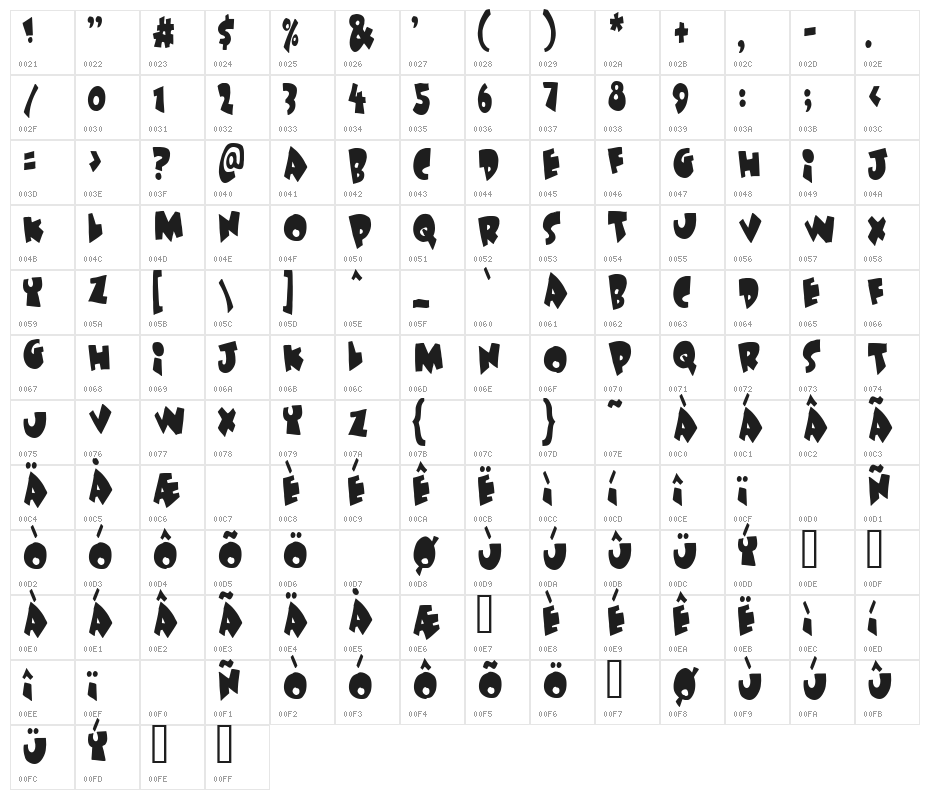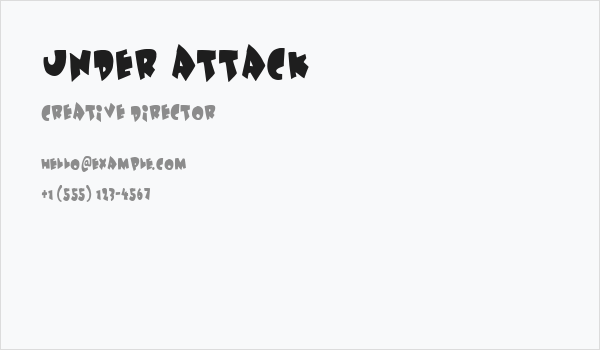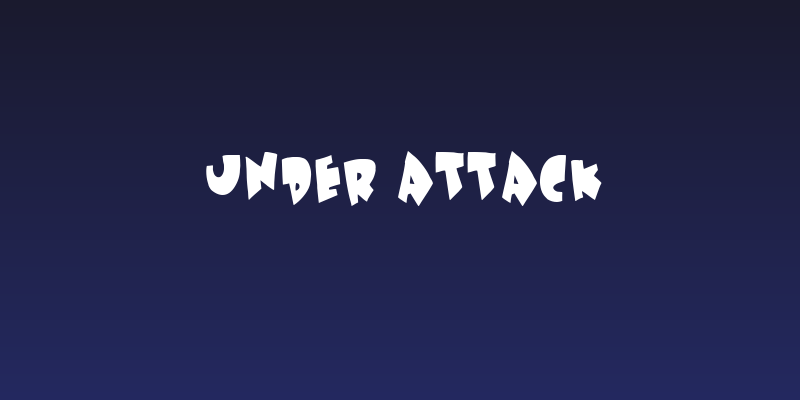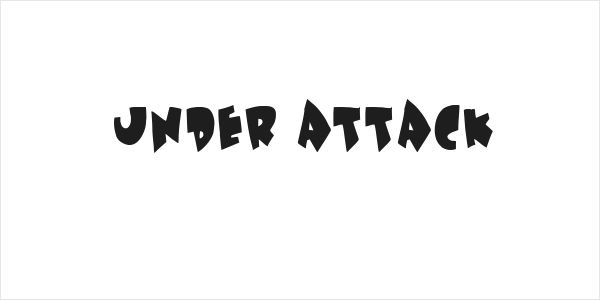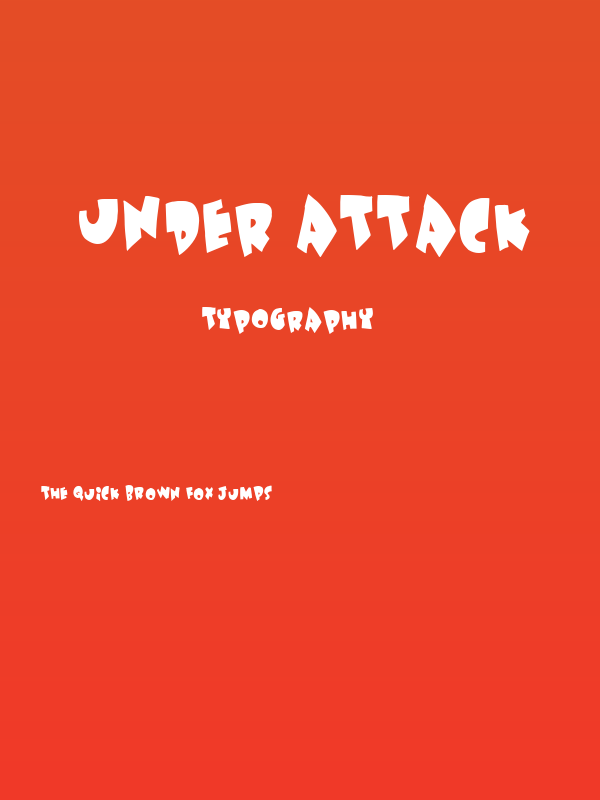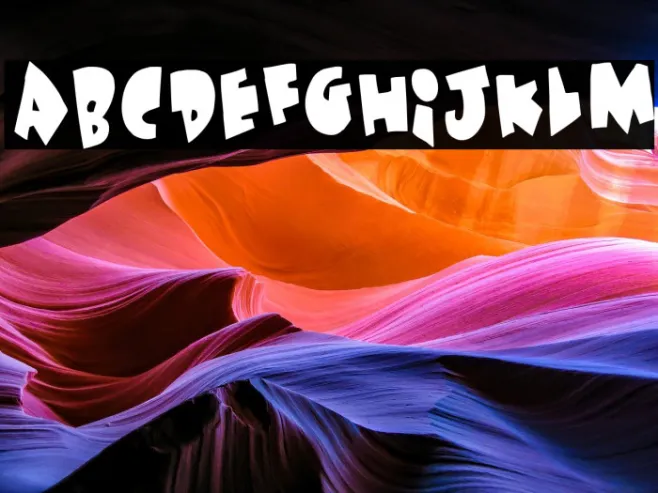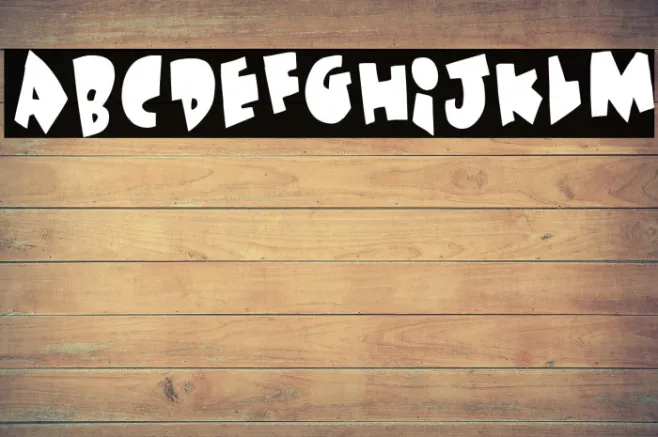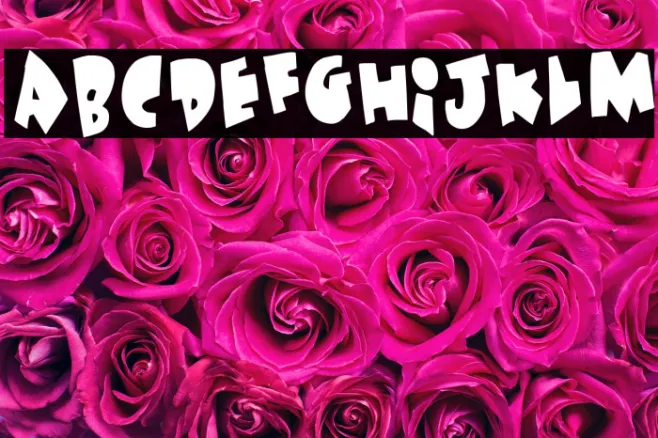
Under attack Font
Under attack Description
This font features a bold and playful design with irregular, jagged edges that give it a dynamic and energetic feel. The characters are heavily stylized, with exaggerated angles and varying thicknesses that create a sense of movement and excitement. The uppercase and lowercase letters maintain a consistent style, while the numbers and special characters complement the overall aesthetic. This font is ideal for projects that require a fun and eye-catching look, such as posters, comic books, or children's materials. Its unique style makes it stand out, ensuring that any text using this font will capture attention.
| Overall Style | Playful, Energetic |
| Proposed Projects | Ideal for posters, comic books, children's materials, and any project needing a fun, eye-catching design. |